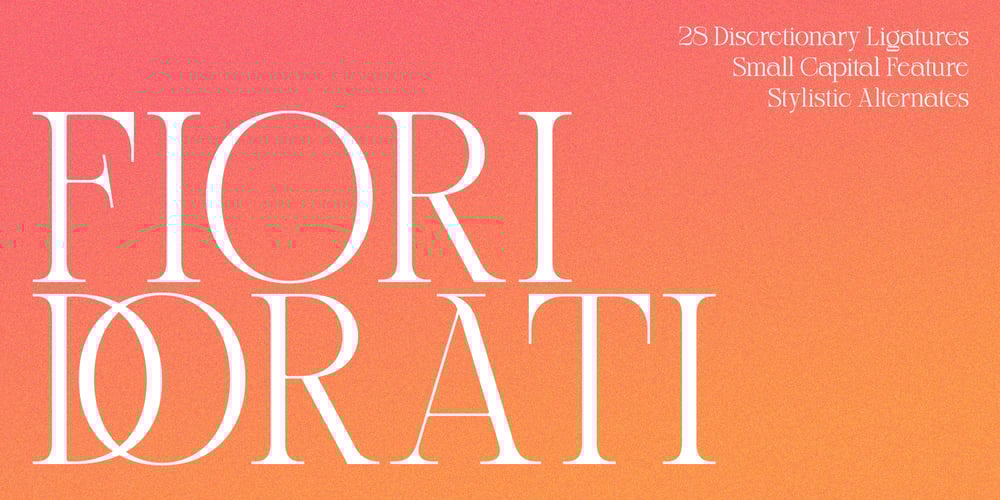
Fiori Dorati Font Family was designed by Sugi Yanto and published by Sign Studio. Fiori Dorati contains 1 styles and family package options. Fiori Dorati is an absolutely elegant serif font. This typeface includes beautiful stylistic alternates and discretionary ligatures. It will elevate a wide range of crafting ideas, from cards to branding, labels, and more. This font is PUA encoded, which means you can access all of the glyphs and swashes with ease.